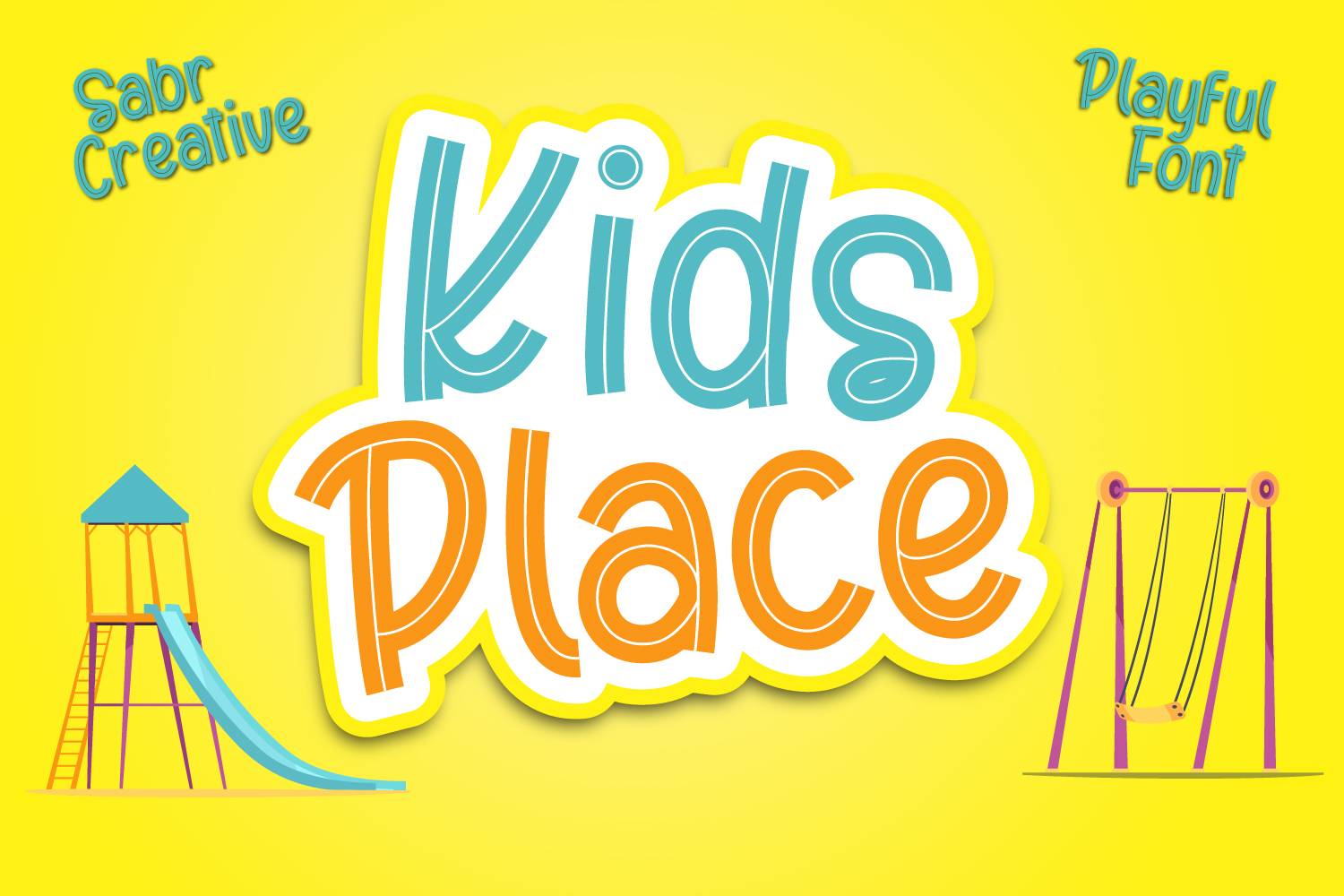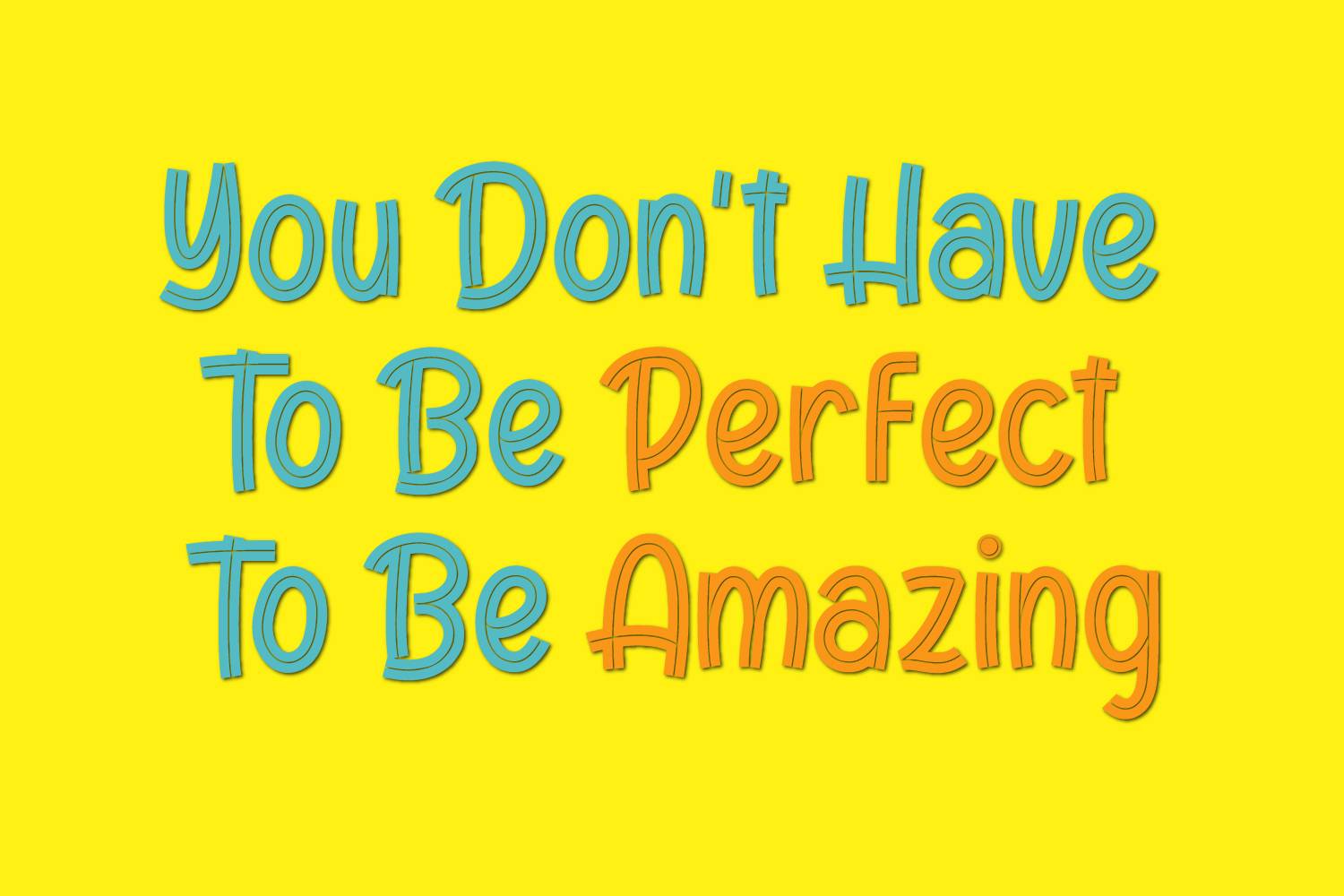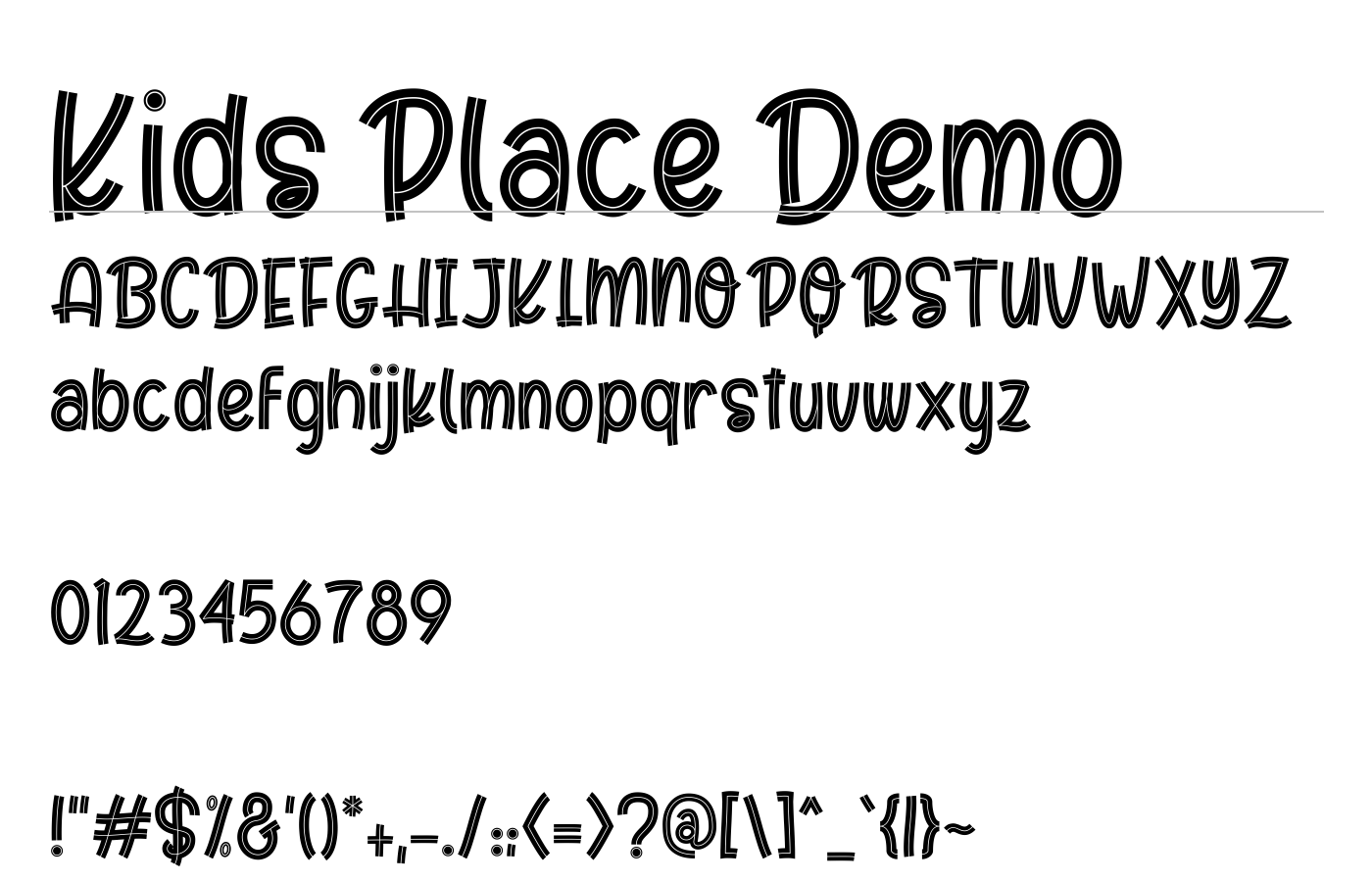
Kids Place is a playful, hand-drawn sans serif font with a lively, bouncy feel that captures a childlike spirit. Its irregular strokes and friendly rounded shapes make it perfect for children’s books, educational materials, and fun branding projects where an informal, cheerful tone is desired. This font works best in headlines and logos that aim to convey creativity and youthful energy.
Kids Place Font
About Kids Place Font
| Font family | Kids Place Font |
| Designer | Sabrcreative Studio |